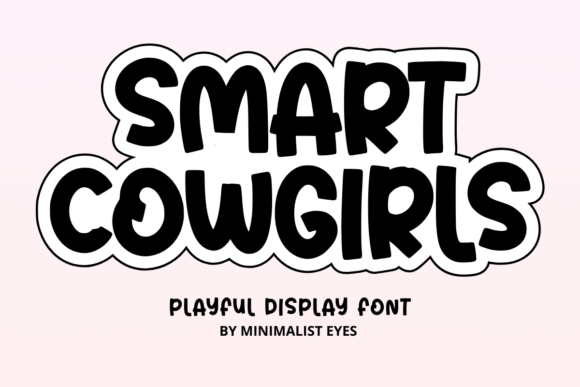
Introducing Smartcowgirls Font: The Ultimate Display Font for Fun and Playful Designs
Are you looking for a font that can add a touch of fun and playfulness to your designs? Look no further than Smartcowgirls Font! This bold and playful display font is perfect for kids’ designs, cartoon titles, stickers, apparel, and anything that needs a lighthearted, energetic touch.
What is Smartcowgirls Font?
Smartcowgirls Font is a hand-drawn display font that exudes a fun and youthful personality. Its chunky, hand-drawn letterforms and quirky charm make it perfect for designs that need to stand out while keeping things casual and fun. The font features smooth curves and a friendly vibe, making it ideal for eye-catching headings and creative projects.
Key Features of Smartcowgirls Font
- Bold and Playful: Smartcowgirls Font is a bold and playful display font that is perfect for designs that need to make a statement.
- Hand-Drawn Letterforms: The font features chunky, hand-drawn letterforms that give it a unique and quirky charm.
- Smooth Curves: The font has smooth curves and a friendly vibe, making it perfect for designs that need to be approachable and fun.
- Multipurpose: Smartcowgirls Font is perfect for a variety of designs, including kids’ designs, cartoon titles, stickers, apparel, and more.
Uses for Smartcowgirls Font
Smartcowgirls Font is a versatile font that can be used for a variety of designs. Here are some ideas to get you started:
- Kids’ Designs: Smartcowgirls Font is perfect for kids’ designs, such as children’s books, posters, and flyers.
- Cartoon Titles: The font is great for cartoon titles, adding a fun and playful touch to your animations and videos.
- Stickers: Smartcowgirls Font is perfect for stickers, adding a bold and playful touch to your designs.
- Apparel: The font is great for apparel, such as t-shirts, hats, and more.
- Headings and Titles: Smartcowgirls Font is perfect for eye-catching headings and titles, adding a fun and playful touch to your designs.
Why Choose Smartcowgirls Font?
There are many reasons to choose Smartcowgirls Font for your designs. Here are a few:
- Unique and Quirky: Smartcowgirls Font has a unique and quirky charm that will set your designs apart from the rest.
- Fun and Playful: The font is perfect for designs that need to be fun and playful, adding a lighthearted touch to your projects.
- Easy to Read: Despite its bold and playful nature, Smartcowgirls Font is easy to read, making it perfect for designs that need to be both fun and functional.
- Versatile: The font is versatile and can be used for a variety of designs, from kids’ designs to cartoon titles and more.
How to Use Smartcowgirls Font
Smartcowgirls Font is a bold and playful display font that is perfect for designs that need to be fun and playful. Its chunky, hand-drawn letterforms and quirky charm make it perfect for kids’ designs, cartoon titles, stickers, apparel, and more. With its smooth curves and friendly vibe, this font is great for eye-catching headings and creative projects that aim to stand out while keeping things casual and fun.
- What is Smartcowgirls Font? Smartcowgirls Font is a bold and playful display font with a fun, youthful personality.
- What is Smartcowgirls Font used for? Smartcowgirls Font is perfect for kids’ designs, cartoon titles, stickers, apparel, and anything that needs a lighthearted, energetic touch.
- Is Smartcowgirls Font easy to read? Yes, despite its bold and playful nature, Smartcowgirls Font is easy to read, making it perfect for designs that need to be both fun and functional.